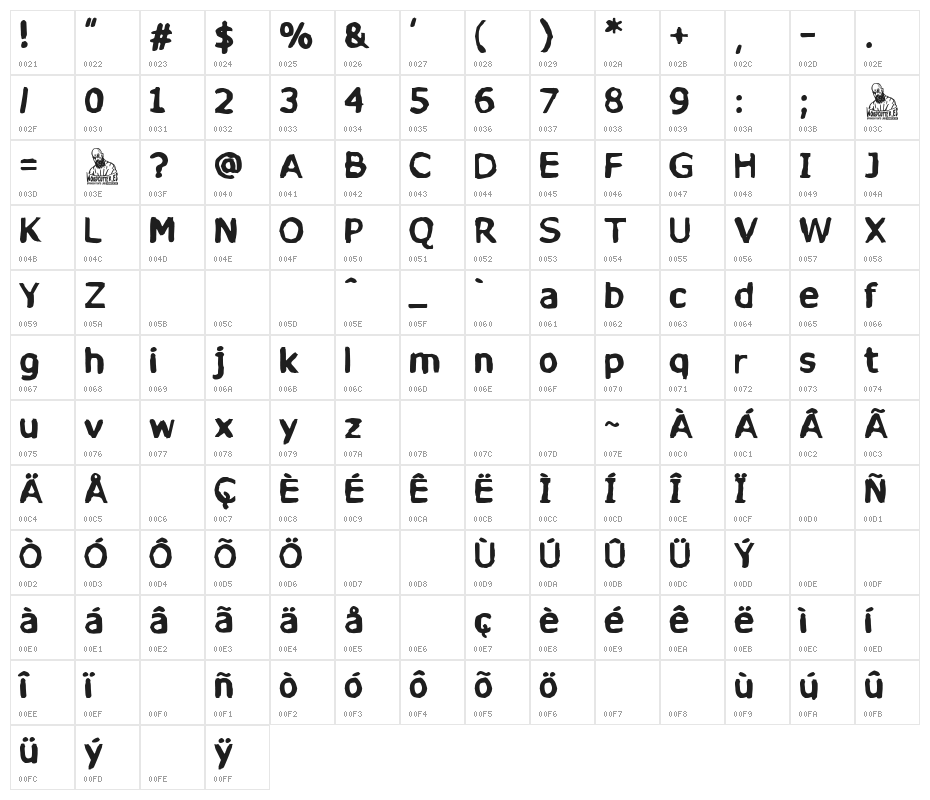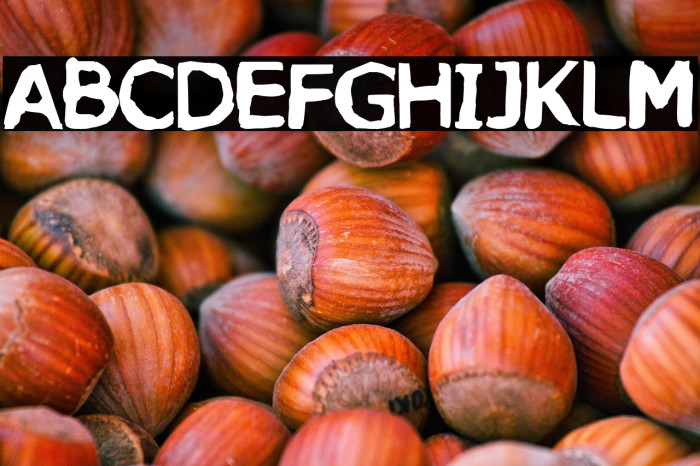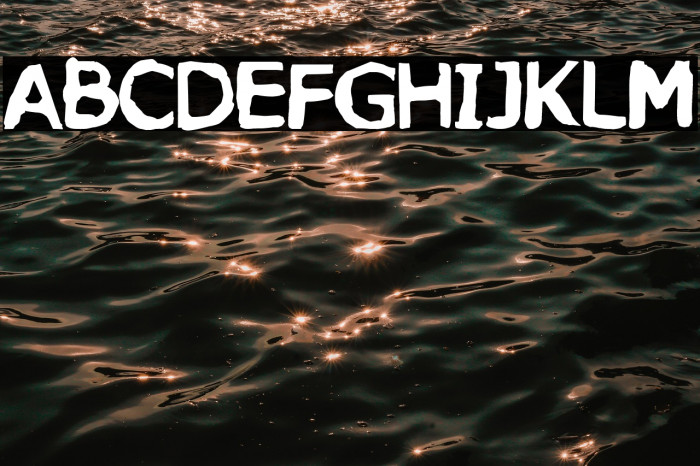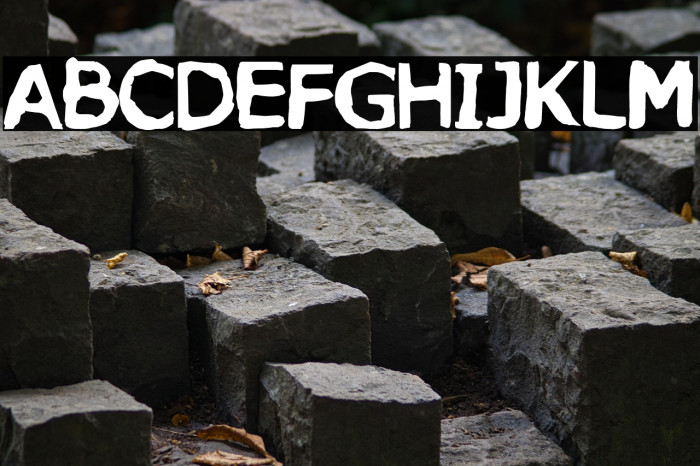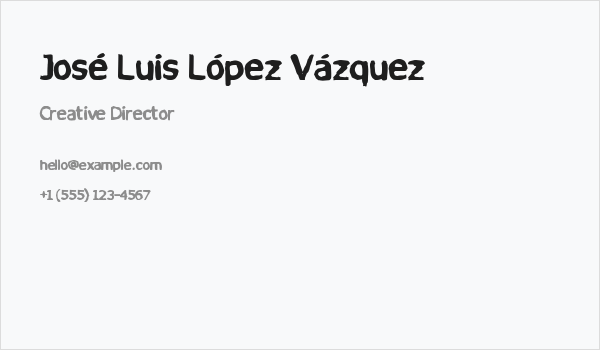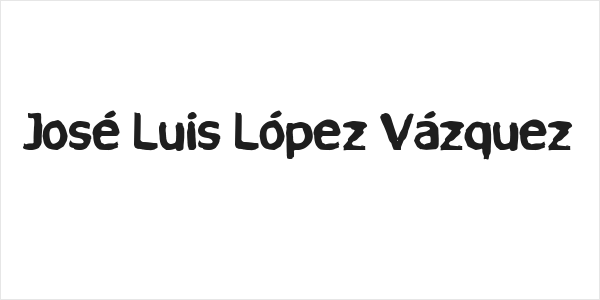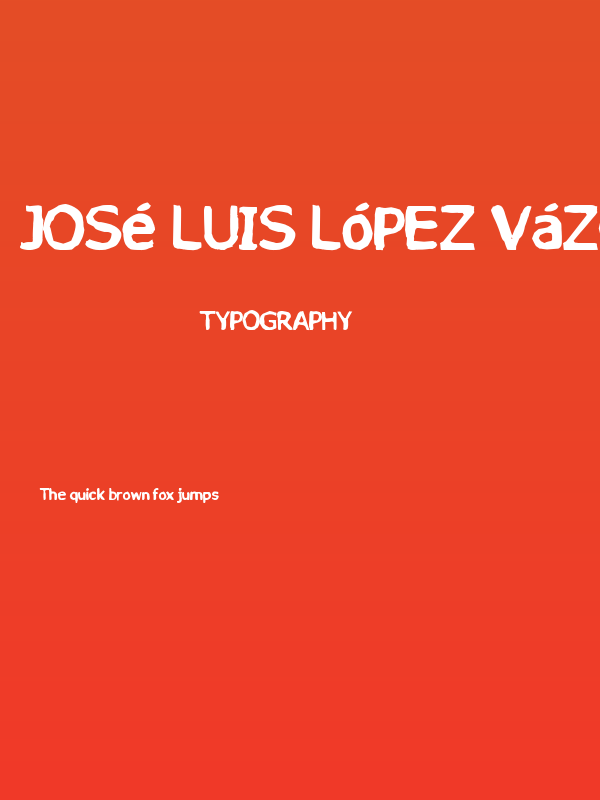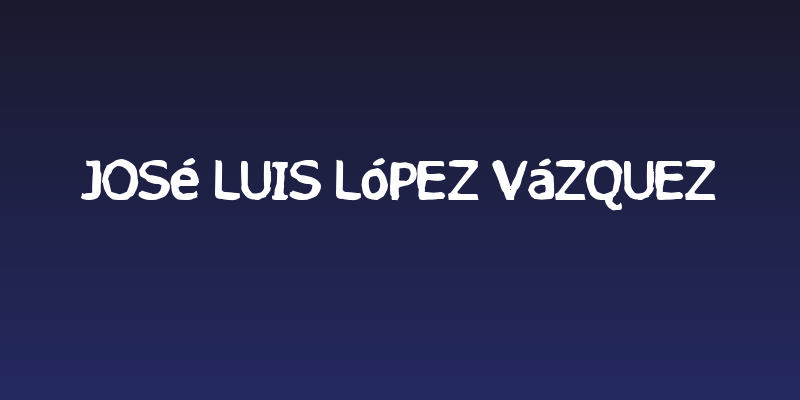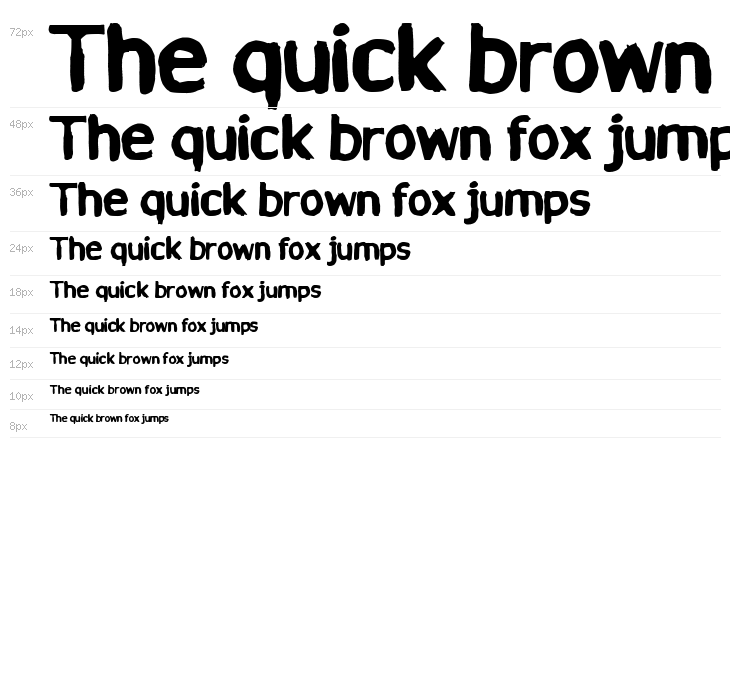
José Luis López Vázquez Font
José Luis López Vázquez Description
This font exhibits a bold and expressive style, characterized by its hand-drawn appearance and irregular, organic shapes. The letters have a playful and artistic quality, with varying stroke thickness that adds to its dynamic feel. The uppercase and lowercase letters maintain a consistent style, while the numbers and special characters are equally bold and distinctive. The overall look is informal and creative, making it suitable for projects that require a personal touch or an artistic flair.
| Proposed Projects | Ideal for creative projects such as posters, artistic branding, children's books, and casual invitations. |